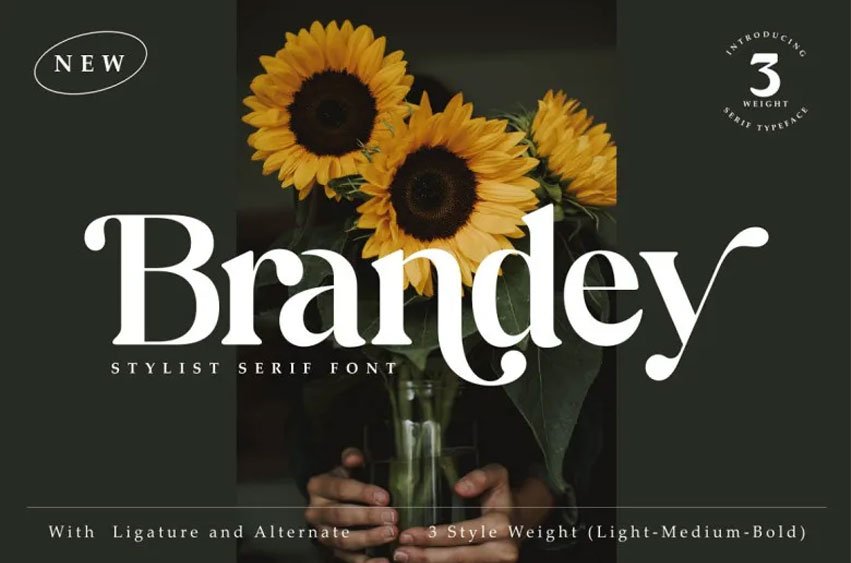
Brandey Font can be described as a serif font with contemporary style, offering warmth and inviting comfort without losing elegance. It comes equipped with three thicknesses to allow designers to select their ideal thickness when creating. Brandey is perfect for branding, advertising packaging, logotypes headlines titles as well as editorial design projects.
It’s Opentype feature offers an abundance of alternate fonts (Discretionary Ligature, Smallcaps, Stylistic Alternate Stylistic Set 1-3, Titling and Swash). This makes this font extremely flexible.